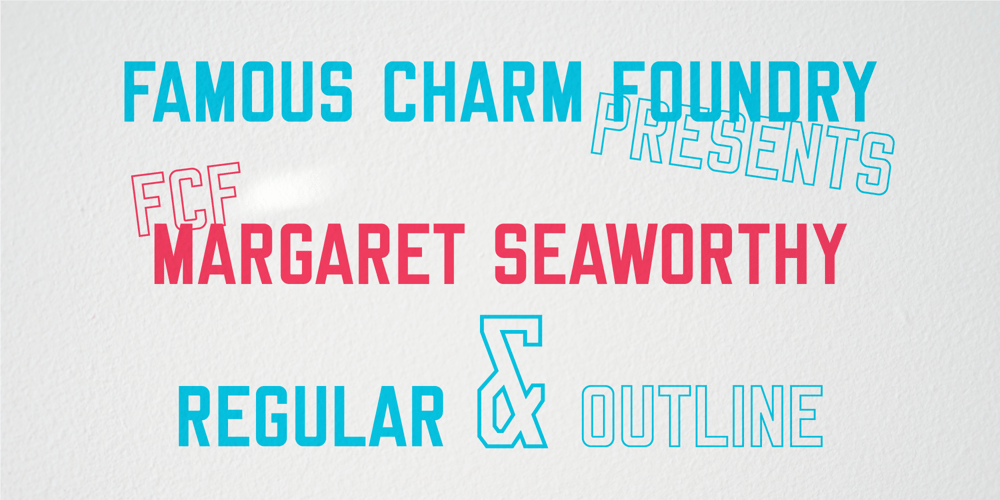
FCF Margaret Seaworthy Font Family was designed by Thomas Bradley and published by Famous Charm. FCF Margaret Seaworthy contains 2 styles and family package options. We are proud to present Margaret Seaworthy, inspired by the iconic lettering designed by the conceptual artist Lawrence Weiner in the 1990s for his fine art practice. The letters have been lovingly redrawn and expanded to include a limited capitals-only character set.–Uppercase